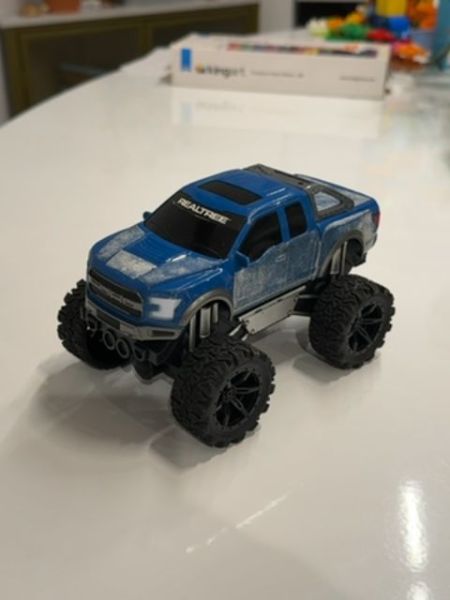
This is a toy model of a monster truck designed for children's play and display purposes. It features oversized tires and a sturdy build for imaginative adventure play.
The typography on the toy truck, located on the windshield area, uses a bold, sans-serif typeface. This choice conveys a sense of power and durability, fitting for a monster truck theme. The letters are all capitalized, enhancing legibility and emphasizing the bold design typical of automotive branding.